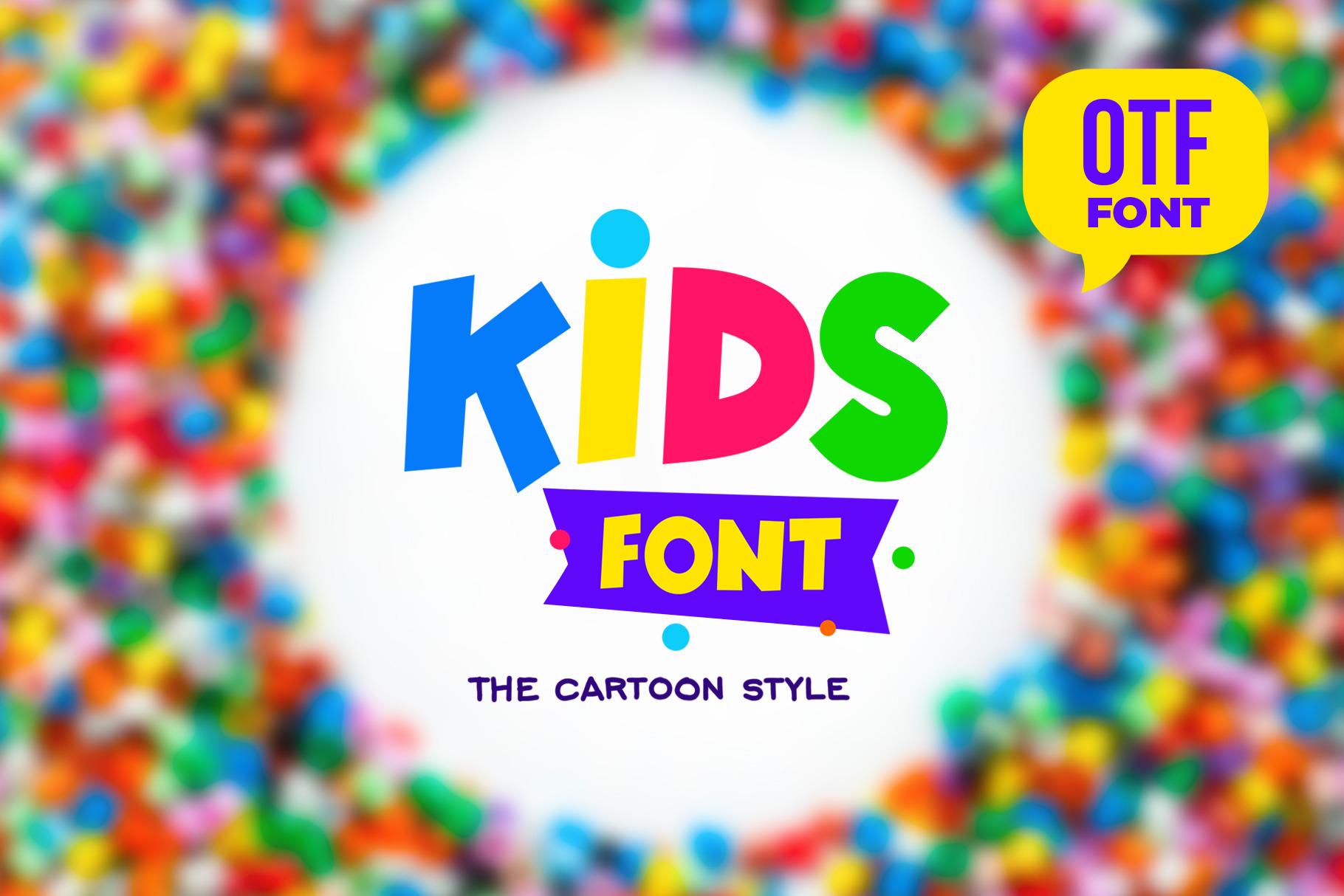
Kids font in the cartoon style, alphabet and numbers. Set of multicolored bright letters for inscriptions and your design . Vector illustration. Isolated on white background.